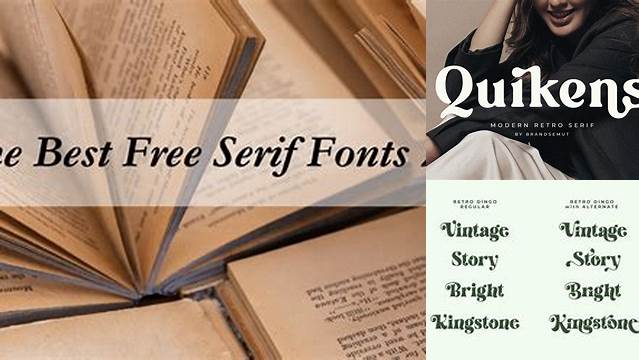
Retro Serif Fonts: Free Download For Modern Designs
Hey guys! Ever wondered how to blend the charm of vintage typography with today's sleek design trends? Well, you're in the right place! We're diving deep into the world of modern retro serif free fonts, exploring everything from their unique characteristics to how you can use them to create stunning designs. Let's get started!
What is a Modern Retro Serif Font?
So, what exactly is a modern retro serif font? Simply put, it's a font that combines the classic, elegant features of serif fonts (those with the little strokes or 'feet' at the end of letters) with a contemporary twist. Think of the warm nostalgia of the past mixed with the clean lines and versatility of modern design. These fonts often evoke feelings of sophistication, warmth, and a touch of vintage charm, making them incredibly popular for a wide range of applications. When we talk about modern retro serif free font, we're often referring to fonts that capture this essence while also being available for use without any licensing fees, making them accessible for everyone from hobbyists to professional designers. The beauty of a modern retro serif free font lies in its adaptability – it can be used to create everything from eye-catching headlines to readable body text, all while adding a unique, memorable touch to your project. With their blend of old-school appeal and modern usability, these fonts are a fantastic way to make your designs stand out from the crowd. They bring a certain je ne sais quoi that other fonts simply can't replicate, allowing you to create visuals that are both stylish and timeless. Whether you’re working on branding, web design, or print materials, incorporating a modern retro serif free font can significantly elevate your work.
The Appeal of Retro Serif Fonts
There's something undeniably captivating about retro serif fonts. They transport us back to a bygone era, evoking feelings of nostalgia and warmth. These fonts often remind us of classic books, vintage advertisements, and old-school signage, creating a sense of familiarity and comfort. The appeal of retro serif fonts lies in their ability to connect with audiences on an emotional level, tapping into their memories and associations with the past. But it's not just about nostalgia; retro serif fonts also offer a unique aesthetic that stands out from the sea of modern, sans-serif typefaces. They add character and personality to designs, making them more engaging and memorable. When you choose a retro serif font, you're not just selecting a typeface; you're choosing to tell a story and create a mood. For example, a font with thick, bold serifs might evoke a sense of strength and reliability, while a font with delicate, elegant serifs might convey sophistication and grace. The versatility of these fonts is another key aspect of their appeal. They can be used in a variety of contexts, from logos and branding to editorial design and web typography. A well-chosen retro serif font can add a touch of class and sophistication to any project, making it feel both timeless and contemporary. Whether you're aiming for a vintage vibe or simply want to add some personality to your designs, retro serif fonts are an excellent choice.
Key Characteristics of Modern Retro Serif Fonts
Alright, let's break down the key characteristics that define modern retro serif fonts. First off, you'll notice a blend of classic serif elements with contemporary design principles. This means they retain the traditional serifs (the little feet at the end of the strokes) but often feature cleaner lines, more balanced proportions, and a touch of modern flair. One of the defining features is the contrast between thick and thin strokes, which adds visual interest and a sense of dynamism. This contrast makes the fonts more readable and gives them a distinct personality. Another crucial aspect is the attention to detail. Designers often incorporate subtle flourishes, unique letterforms, and carefully crafted curves to create fonts that are both beautiful and functional. The goal is to create a font that feels both familiar and fresh, capturing the essence of the past while remaining relevant to modern design trends. Color also plays a role, even though it's not an inherent characteristic of the font itself. Modern retro serif fonts often look stunning in vintage-inspired color palettes, such as muted earth tones, rich jewel tones, and warm pastels. These colors enhance the retro vibe and create a cohesive visual experience. In summary, the key characteristics of these fonts include a blend of classic and modern elements, high contrast, meticulous attention to detail, and the ability to pair well with vintage-inspired color schemes. These features combine to create typefaces that are both timeless and contemporary, making them a valuable asset for any designer.
Where to Find Free Modern Retro Serif Fonts
How to Use Modern Retro Serif Fonts Effectively
Okay, so you've found the perfect modern retro serif free font – now what? Using it effectively is key to creating designs that truly shine. First and foremost, consider the context of your project. What message are you trying to convey? What kind of mood do you want to create? Modern retro serif fonts are particularly well-suited for projects that aim to evoke a sense of nostalgia, sophistication, or authenticity. They work beautifully in branding for businesses that want to project a classic, timeless image. Think coffee shops, vintage clothing stores, or artisanal food brands. In terms of typography, it's important to use these fonts strategically. They often work best as display fonts for headlines, logos, and other prominent elements. While they can be used for body text, it's crucial to ensure that the font is legible and comfortable to read. Pairing your modern retro serif free font with a clean, modern sans-serif font can create a striking contrast that enhances both typefaces. For example, you might use a bold retro serif for your headlines and a simple sans-serif for your body text. Color is another important consideration. As mentioned earlier, vintage-inspired color palettes can complement these fonts beautifully. Think muted earth tones, warm neutrals, and pops of rich jewel tones. Experiment with different color combinations to find what works best for your project. Finally, pay attention to the details. Kerning, leading, and tracking can all have a significant impact on the readability and overall aesthetic of your typography. By mastering these techniques, you can ensure that your modern retro serif fonts look their absolute best. In short, use these fonts thoughtfully, considering the context, typography, color, and attention to detail to maximize their impact.
Modern Retro Serif Fonts in Branding
When it comes to branding, modern retro serif fonts can be a game-changer. They offer a unique way to stand out from the crowd and create a memorable brand identity. These fonts evoke feelings of nostalgia, authenticity, and sophistication, making them perfect for businesses that want to project a classic, timeless image. Think about brands that sell artisanal goods, vintage clothing, or handcrafted products. A modern retro serif font can instantly communicate the quality and craftsmanship that goes into these products. In logo design, these fonts can add a touch of elegance and personality. They work particularly well for brands that have a story to tell or a rich history to draw upon. Consider using a retro serif in combination with a simple, clean graphic to create a logo that is both eye-catching and timeless. In addition to logos, modern retro serif fonts can be used in a variety of other branding materials, such as business cards, letterheads, and website headers. Consistency is key when it comes to branding, so make sure to use the same font across all of your marketing materials. Color also plays a crucial role in branding. As mentioned earlier, vintage-inspired color palettes can complement these fonts beautifully. Think muted earth tones, warm neutrals, and pops of rich jewel tones. These colors can help to create a cohesive brand identity that is both visually appealing and emotionally resonant. Overall, using modern retro serif fonts in your branding can help you to create a strong, memorable brand identity that resonates with your target audience. By carefully considering the context, typography, and color, you can create a brand that is both timeless and contemporary.
Modern Retro Serif Fonts in Web Design
In the world of web design, modern retro serif fonts can add a touch of personality and sophistication to your site. They can help you create a unique online experience that stands out from the sea of generic websites. However, it's important to use these fonts strategically to ensure that your website is both visually appealing and user-friendly. One of the key considerations is readability. While modern retro serif fonts can look stunning in headlines and other prominent elements, they may not be the best choice for body text. If you do choose to use them for body text, make sure that the font is legible and comfortable to read. Adjust the font size, line height, and letter spacing to optimize readability. Pairing your modern retro serif font with a clean, modern sans-serif font can create a visually appealing contrast that enhances both typefaces. Use the serif font for headlines and the sans-serif font for body text to create a balanced and harmonious design. Another important consideration is website loading speed. Complex fonts can sometimes slow down your website, which can negatively impact the user experience. To avoid this, choose a font that is optimized for web use and consider using a font loading strategy that prioritizes the display of essential text. In terms of layout, modern retro serif fonts can work well in a variety of designs. They can add a touch of elegance to minimalist websites or create a sense of nostalgia in vintage-inspired designs. Experiment with different layouts and design elements to find what works best for your website. Overall, using modern retro serif fonts in web design can help you create a unique and engaging online experience. Just remember to prioritize readability, optimize website loading speed, and experiment with different layouts to find what works best for your site.
Combining Modern and Retro Elements in Typography
One of the coolest things you can do with typography is combining modern and retro elements. This approach allows you to create designs that are both timeless and contemporary, blending the best of both worlds. When it comes to modern retro serif fonts, this means pairing them with modern design elements to create a unique and visually appealing aesthetic. One effective technique is to use a modern retro serif font for your headlines and a clean, modern sans-serif font for your body text. This creates a striking contrast that draws the eye and enhances readability. You can also experiment with different font weights and sizes to create visual hierarchy and emphasize important information. Another way to combine modern and retro elements is to use vintage-inspired color palettes with modern layouts and graphics. Think muted earth tones, warm neutrals, and pops of rich jewel tones paired with clean lines and minimalist design elements. This creates a sense of nostalgia while still feeling fresh and contemporary. You can also incorporate vintage illustrations and patterns into your designs. Look for high-quality vector graphics that have a retro feel and use them sparingly to add visual interest without overwhelming the design. In addition to typography and graphics, consider using modern technology to enhance the retro aesthetic. For example, you could use CSS animations and transitions to create subtle movements that evoke the feeling of old-school signage. Overall, combining modern and retro elements in typography allows you to create designs that are both unique and timeless. By carefully blending the best of both worlds, you can create visuals that are both visually appealing and emotionally resonant.
The Psychology Behind Serif Fonts: Why They Work
Ever wondered why serif fonts feel so… official? There's actually some psychology behind serif fonts that explains why they work so well in certain contexts. Serif fonts, with their little decorative strokes, tend to evoke feelings of tradition, authority, and sophistication. They remind us of classic books, newspapers, and formal documents, creating a sense of credibility and trustworthiness. This is why they are often used by established brands and institutions that want to project a sense of stability and reliability. The psychology behind serif fonts also suggests that they can enhance readability, particularly in print. The serifs help to guide the eye along the lines of text, making it easier to read long passages. This is why serif fonts are often used in books and newspapers. However, in the digital world, the impact of serifs on readability is less clear. Some studies suggest that sans-serif fonts are more readable on screens, while others find little difference between the two types of fonts. When it comes to modern retro serif fonts, the psychology is slightly different. These fonts evoke feelings of nostalgia and warmth in addition to tradition and authority. They remind us of the past while still feeling contemporary, making them perfect for brands that want to connect with audiences on an emotional level. Overall, understanding the psychology behind serif fonts can help you choose the right typeface for your project and create a design that resonates with your target audience. Whether you're aiming for a sense of tradition, authority, or nostalgia, serif fonts can be a powerful tool.
The Art of Kerning: Optimizing Spacing in Retro Serif Fonts
The art of kerning, or adjusting the spacing between individual letters, is especially important when working with retro serif fonts. These fonts often have unique and intricate letterforms, making proper kerning essential for readability and visual appeal. 1. Understanding Kerning: Kerning involves adjusting the space between specific pairs of letters to create a more balanced and harmonious appearance. This is particularly important in retro serif fonts, where the serifs and decorative elements can create uneven spacing. 2. Identifying Problem Areas: Look for pairs of letters where the spacing appears too tight or too wide. Common problem areas include combinations like